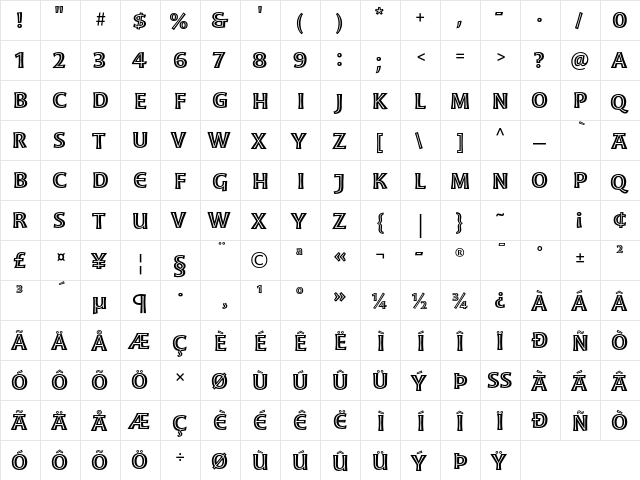
Moonglow Semibold
| Designer | Michael Harvey |
Design Context for Moonglow Typeface
Moonglow takes a measured approach to typography — its balanced proportions and neutral character make it a reliable workhorse for both digital and print work. The heavy weight commands attention and anchors typographic hierarchies.